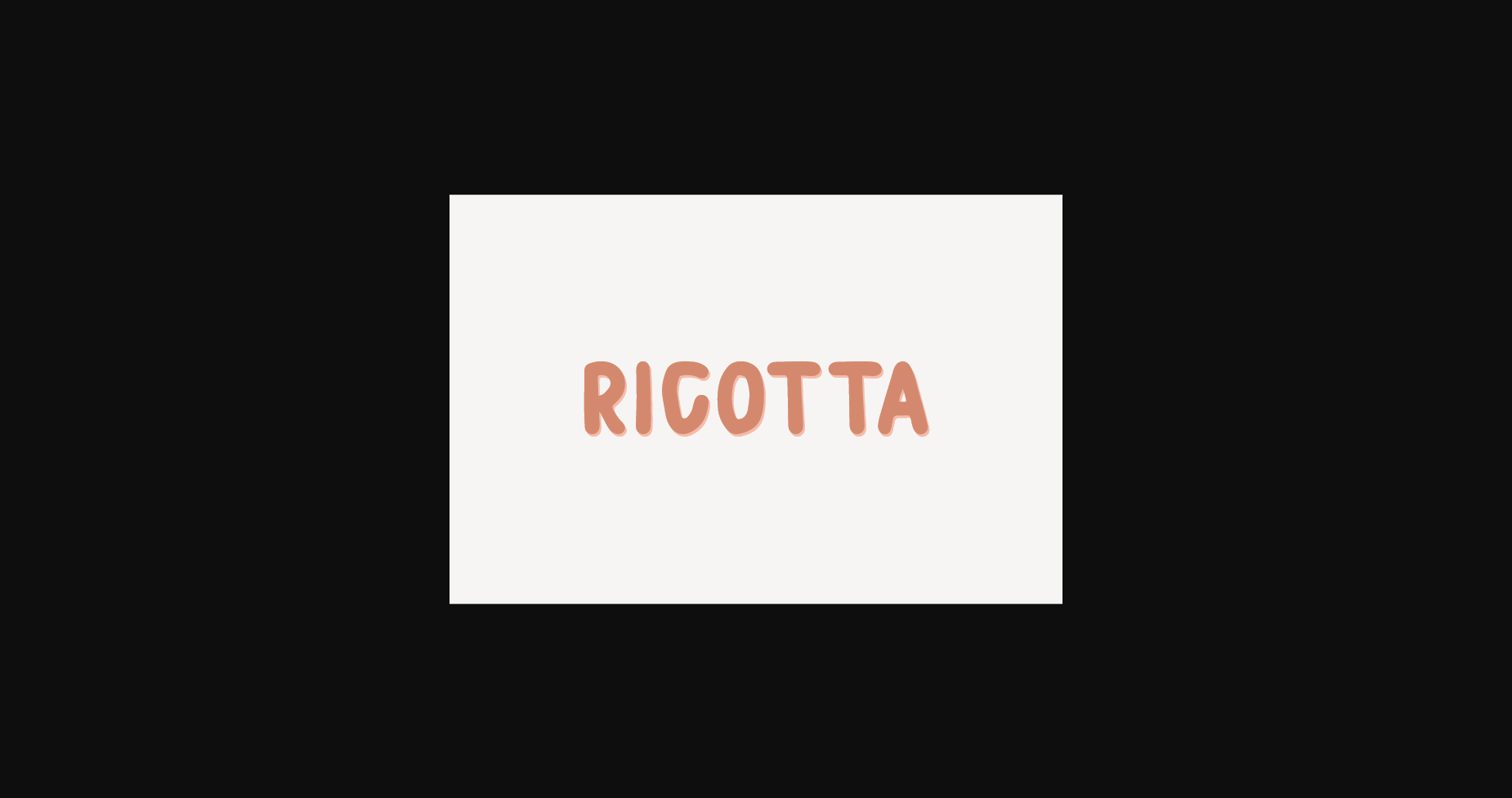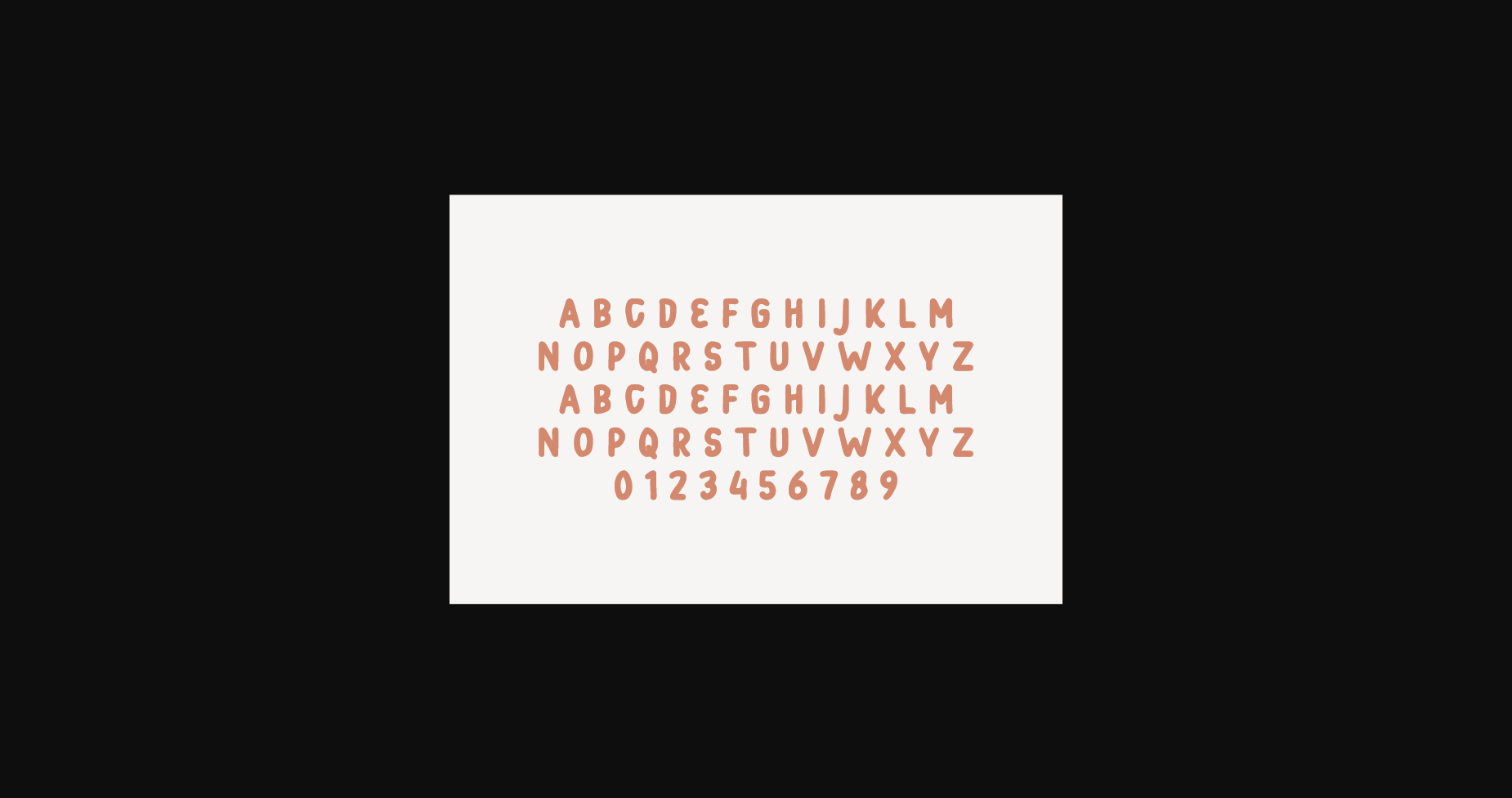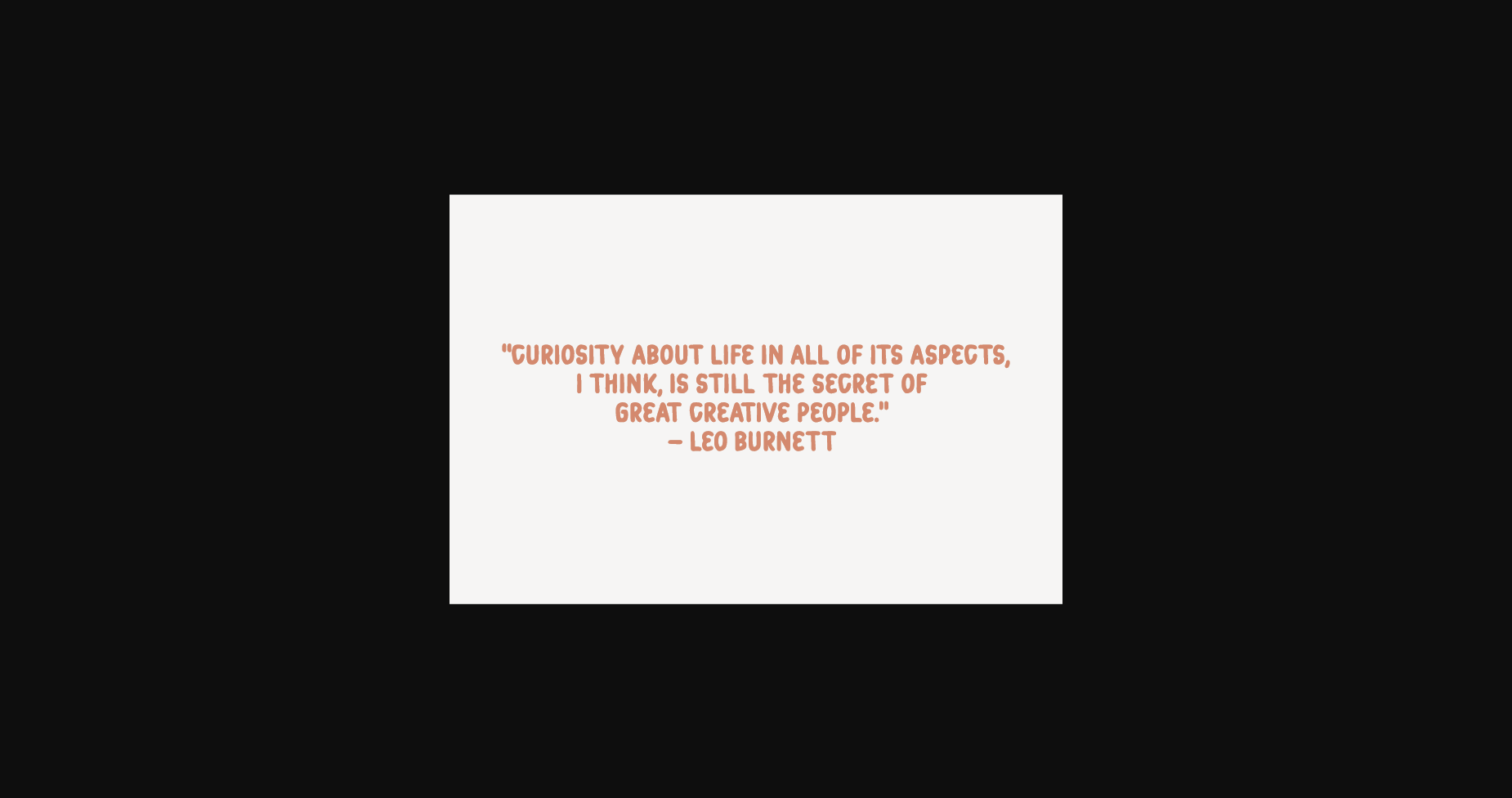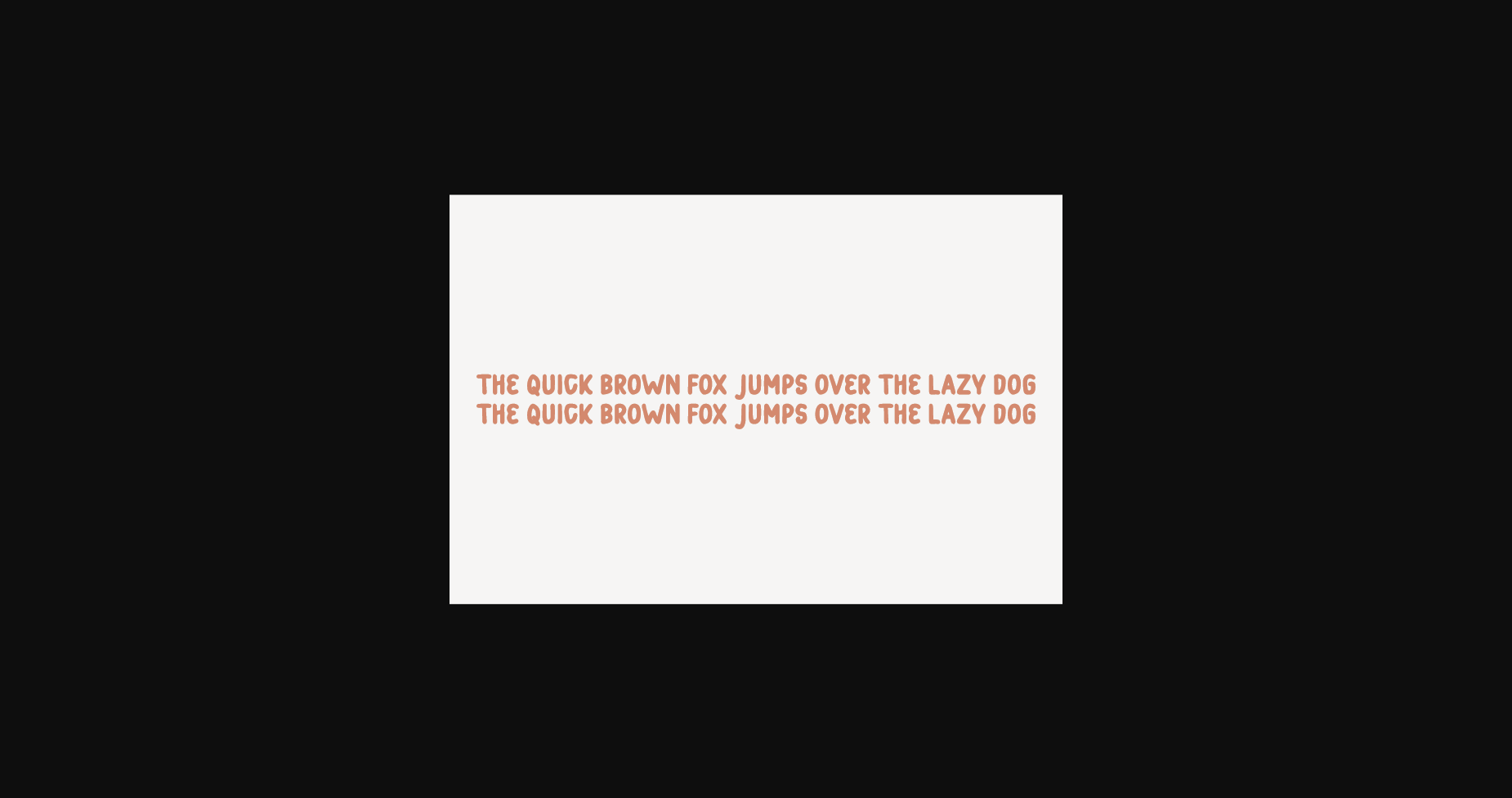
Ricotta is a natural sans serif font made without changing a single node in each character’s indentation. This makes this font interesting and unique. This lovely typeface is perfect for quotes, notes, tees, or anything else.